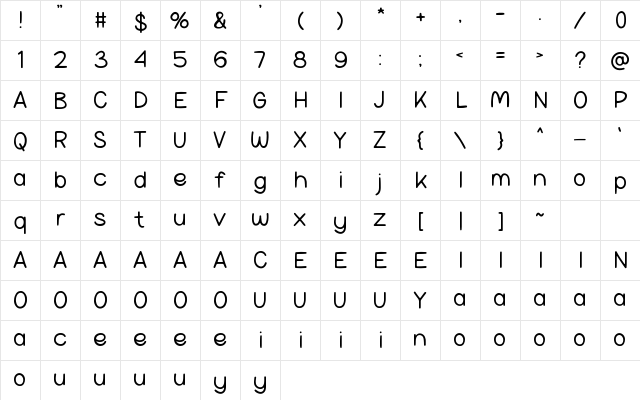
KIDOSANS Regular Free Font
KIDOSANS Regular
Foundry: TOKOPRESS
Designer: TOKOPRESS TEAM
Design Context for KIDOSANS
KIDOSANS is a composed and adaptable typeface that performs quietly and consistently across a wide range of design contexts.